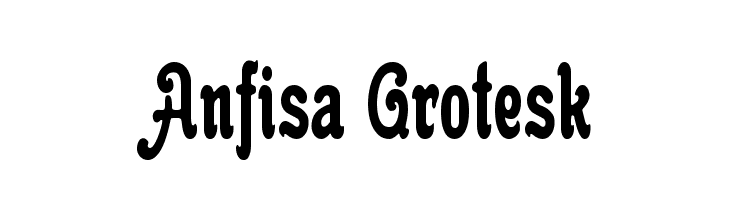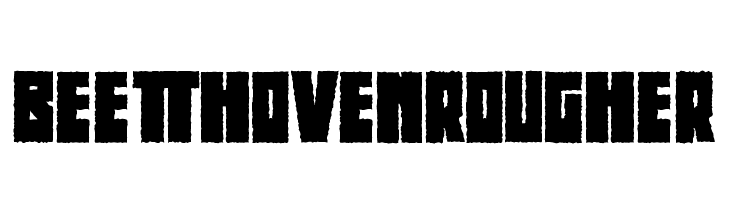
A bold, playful font with decorative curves and loops.
A bold, grungy brush-style font with a distressed texture.
A bold, dynamic font with a comic book style and three-dimensional effect.
A classic serif font with elegant strokes and a Renaissance-inspired design.
A modern, light, and italic font with smooth strokes and balanced proportions.
A geometric, futuristic font with angular and linear characters.
A bold, dynamic script font with a brush-like appearance.
A bold, geometric sans-serif font with a modern outline style.